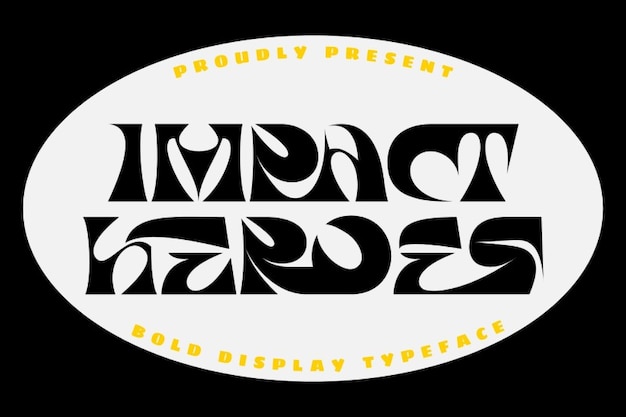
Impact Heroes Font
177Studio
"Impact Heroes" is an experimental and fashionable font that blends modern design with bold, innovative elements. Its unique structure pushes the boundaries of traditional typography, offering a fresh and dynamic look. Perfect for cutting-edge branding, creative projects, or fashion-themed designs, this font makes a strong, stylish statement with every letter.